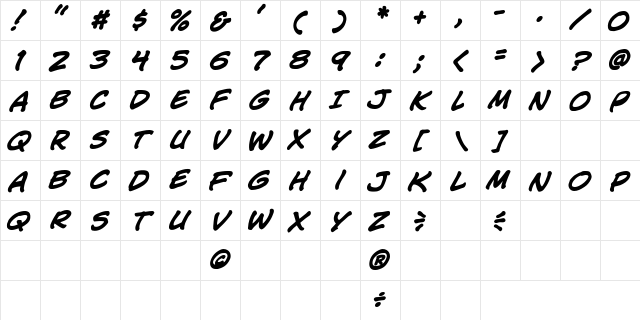
CCJimLee Bold Italic Free Font
CCJimLee Bold Italic
Design Context for CCJimLee
CCJimLee is a composed and adaptable typeface that performs quietly and consistently across a wide range of design contexts. The slanted form adds forward momentum and visual energy. Its bold stroke weight gives it real presence on the page.
Pro Tip: Use CCJimLee for emphasis, pull quotes, and subheadings where its slanted energy can add rhythm to the layout.